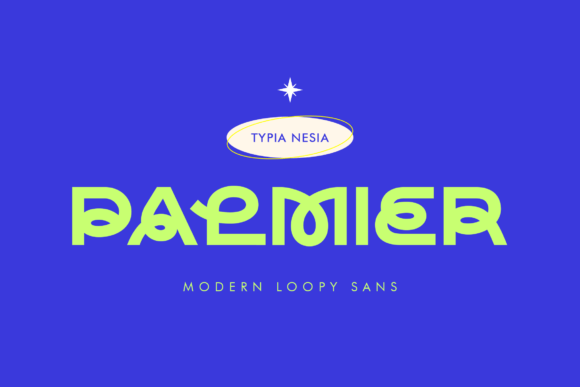
Embark on a Typographical Adventure with Palmier Font: Your Gateway to Distinctive Designs
Unleash the captivating charm of Palmier Font, a sans serif masterpiece meticulously crafted by Typia Nesia. Its bold loopy strokes dance across the digital canvas, leaving a trail of elegance and sophistication in their wake. Palmier Font stands as a testament to the transformative power of typography, ready to elevate your creative projects to unprecedented heights.
With Palmier Font as your artistic companion, you'll discover a world of endless possibilities. Its versatility extends far beyond the boundaries of traditional design, reaching into the realms of logo branding, editorial design, and the vibrant world of sports. Unleash your imagination and let Palmier Font guide you through the digital labyrinth, leaving a lasting impression on your audience.
Dive into the gaming industry and create captivating experiences that transport players to new dimensions. Let Palmier Font adorn your game titles and user interfaces, adding a layer of intrigue and excitement that keeps them coming back for more. Its bold and playful nature is a perfect fit for the fast-paced, adrenaline-fueled world of gaming, where every detail matters.
Take center stage in the music industry, where Palmier Font will transform your album covers and posters into works of art. Let the melodies flow seamlessly with the curves and loops of this remarkable font, captivating the hearts and minds of your listeners. Palmier Font will make your music stand out from the crowd, leaving an indelible mark on the music scene.
Venture into the realm of web design and let Palmier Font weave its magic across your digital tapestry. Create websites that exude elegance and sophistication, captivating visitors with every click. Palmier Font's modern and bold presence will elevate your online presence, ensuring that your brand shines brightly in the vast digital landscape.